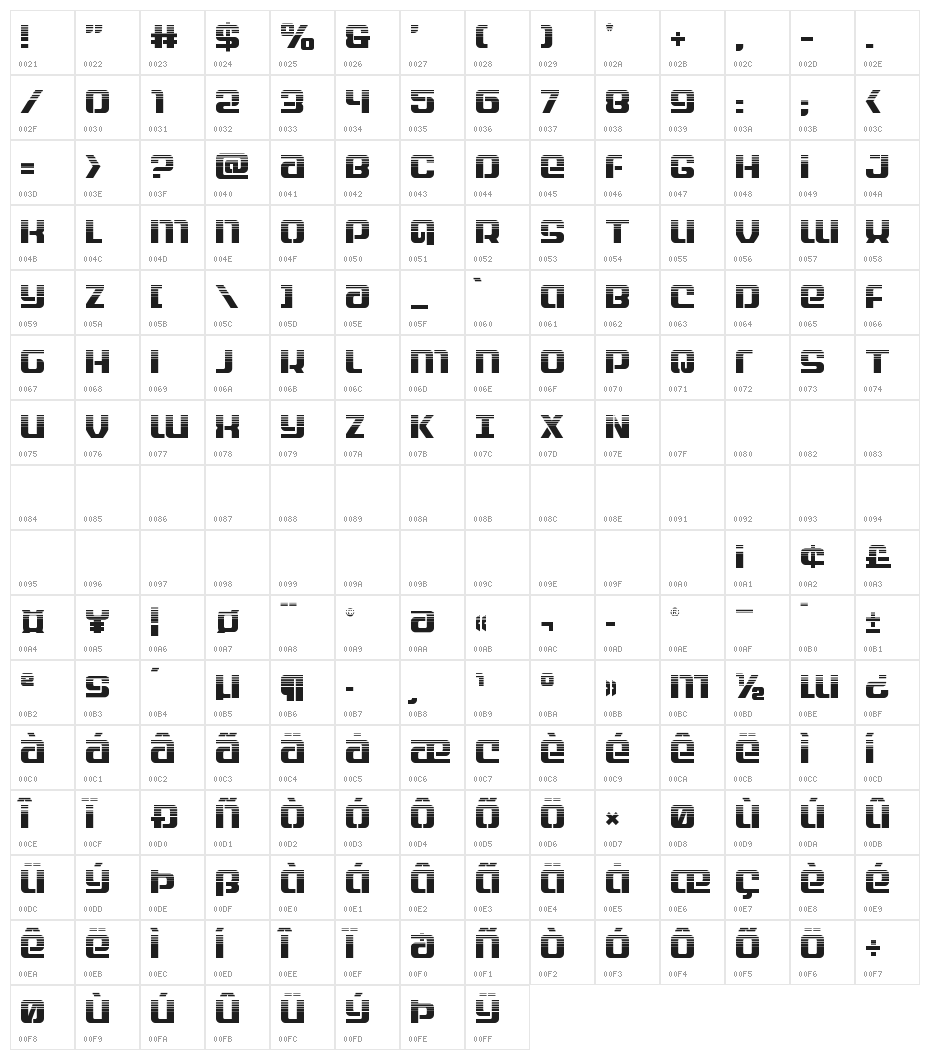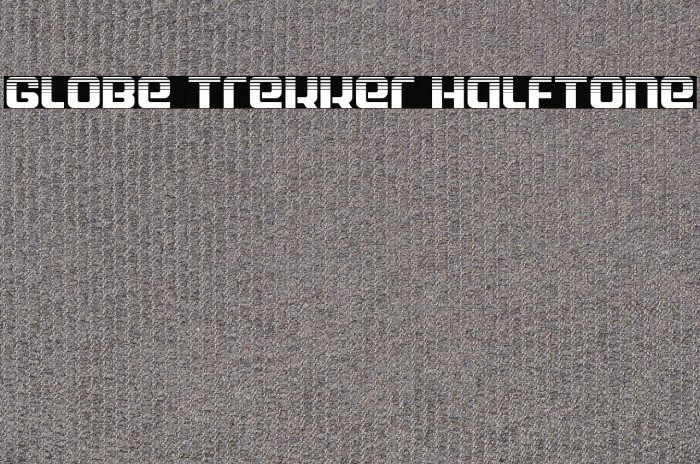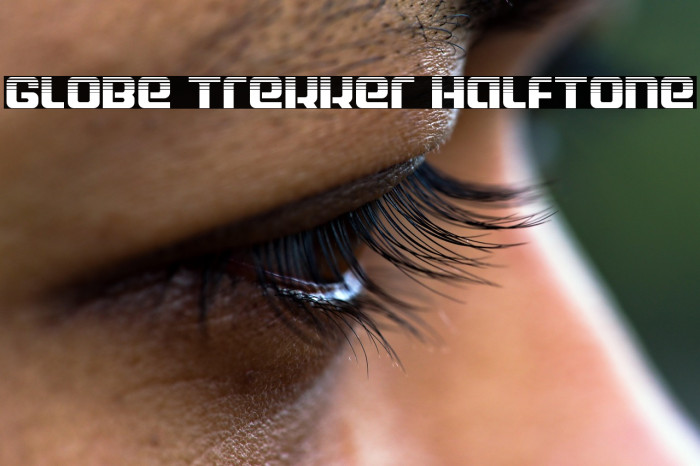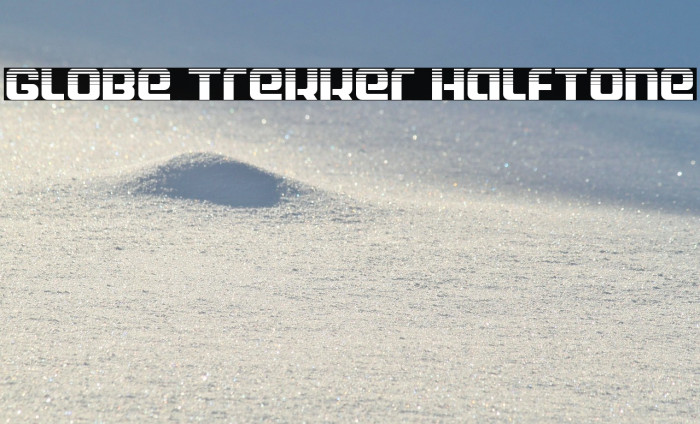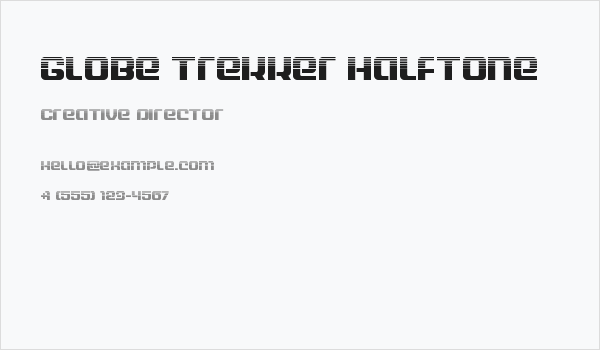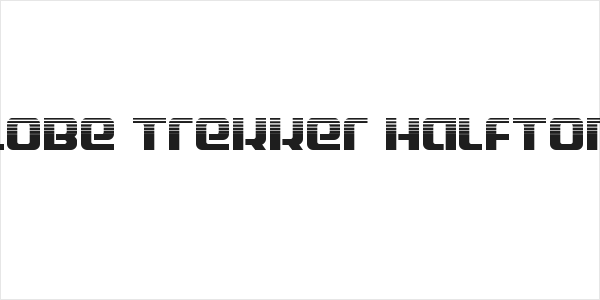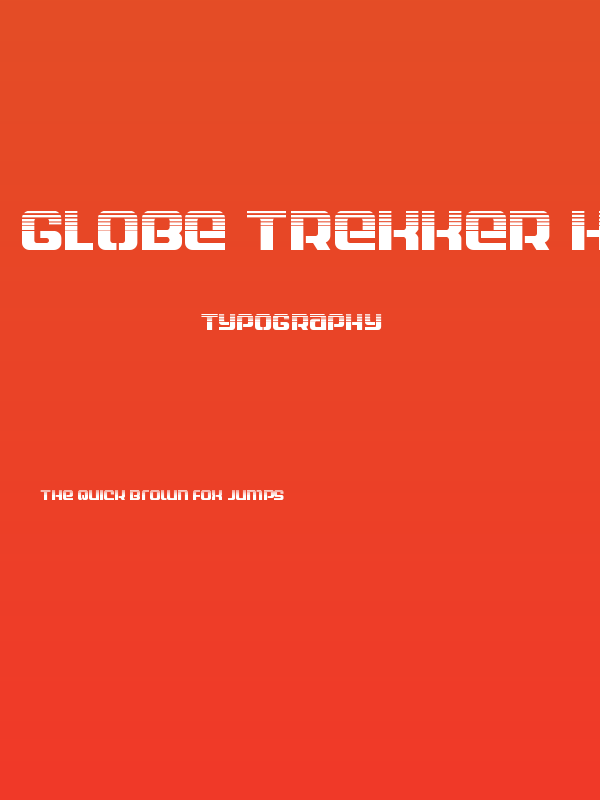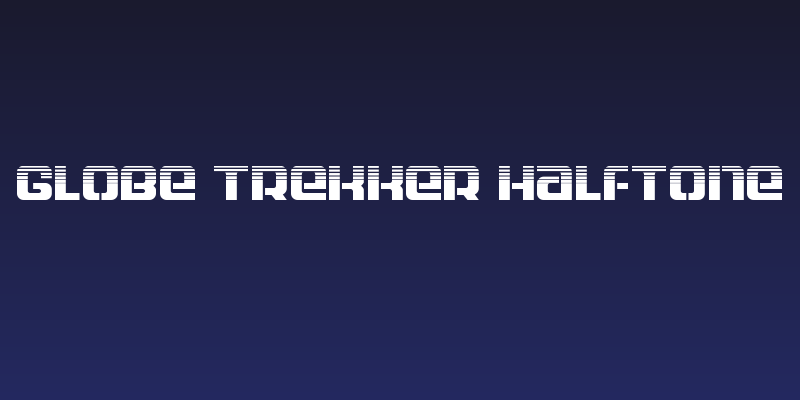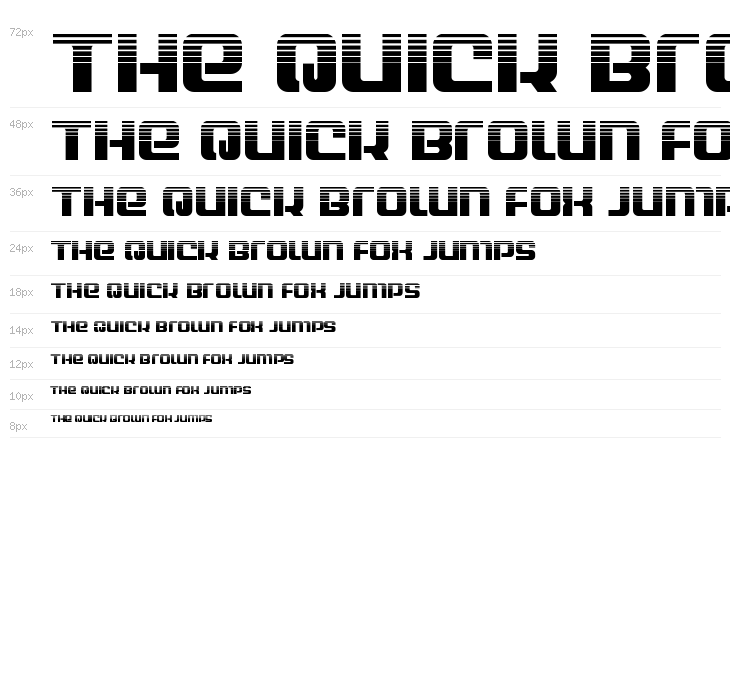
Globe Trekker Halftone Font
Globe Trekker Halftone Description
This font features a bold, geometric design with a halftone effect that creates a sense of movement and depth. The characters are constructed with thick, blocky shapes that are intersected by horizontal lines, giving them a futuristic and dynamic appearance. The uppercase and lowercase letters maintain a consistent style, with the lowercase slightly smaller but equally bold. Numbers and special characters follow the same design principles, ensuring uniformity across all glyphs. This font is ideal for projects that require a modern and edgy look, such as tech-related branding or sci-fi themed designs.